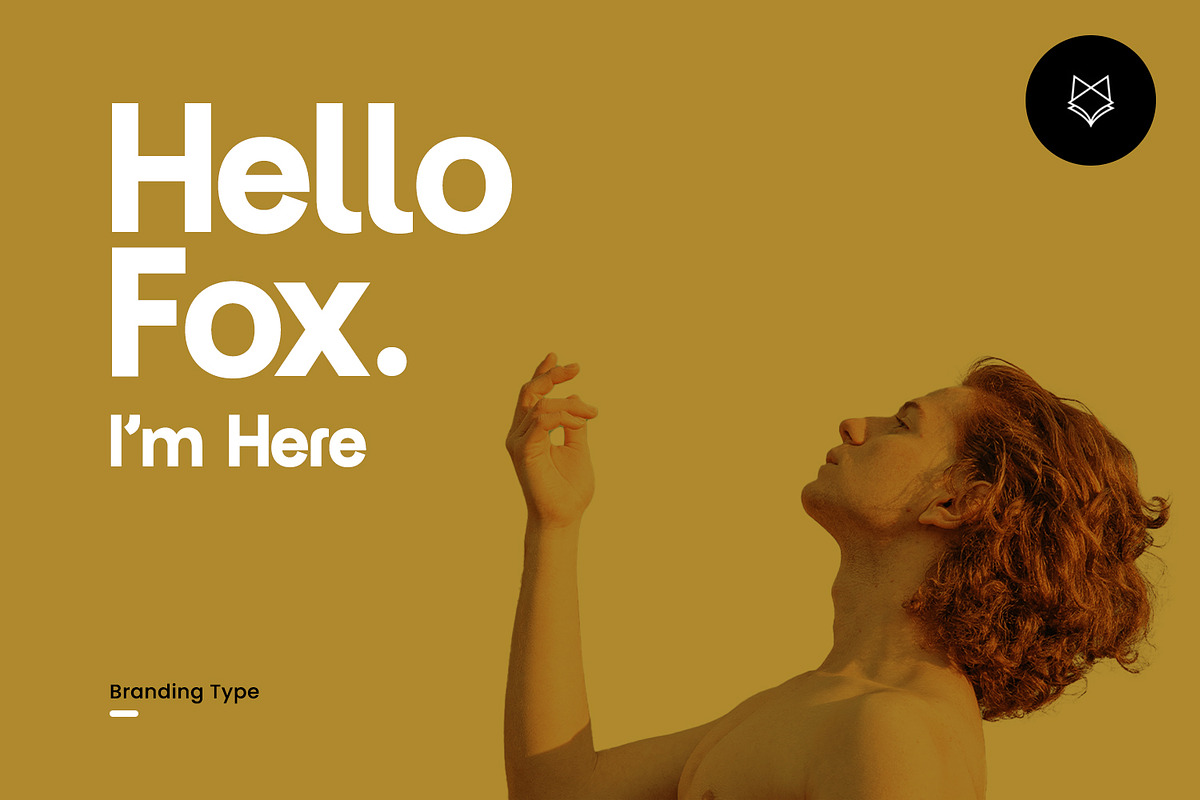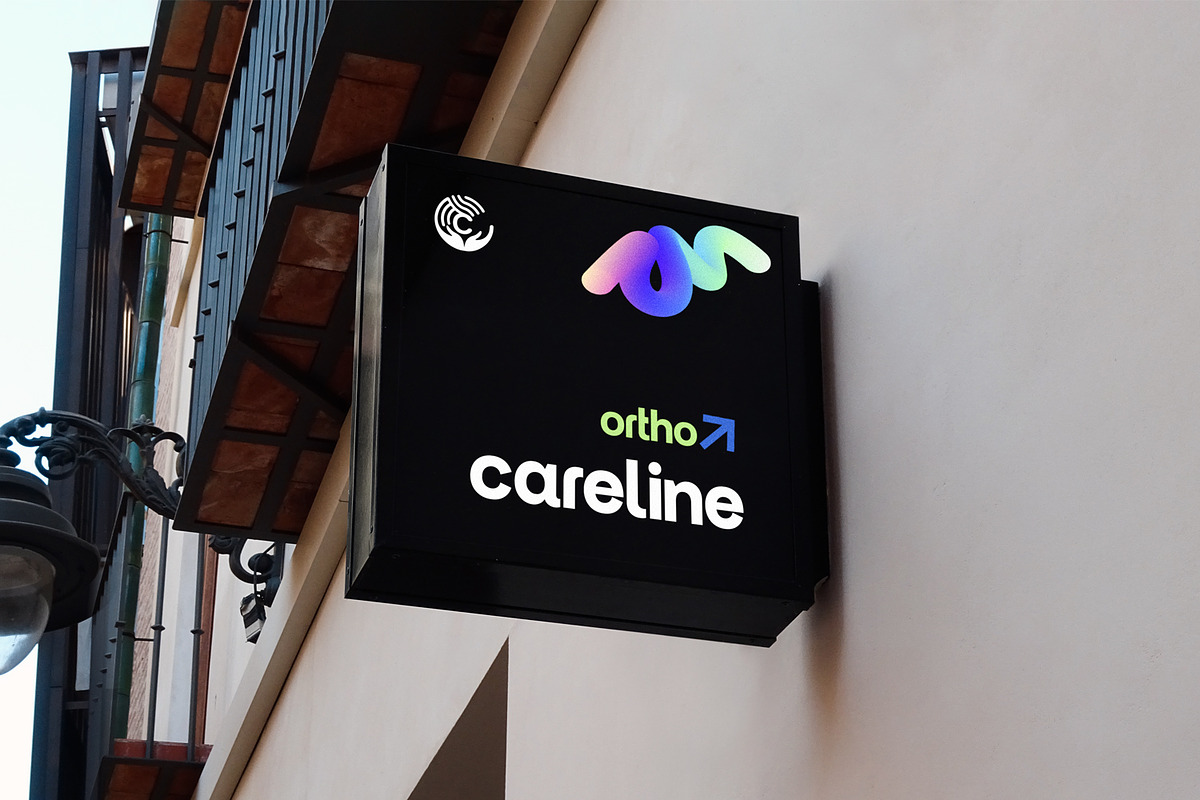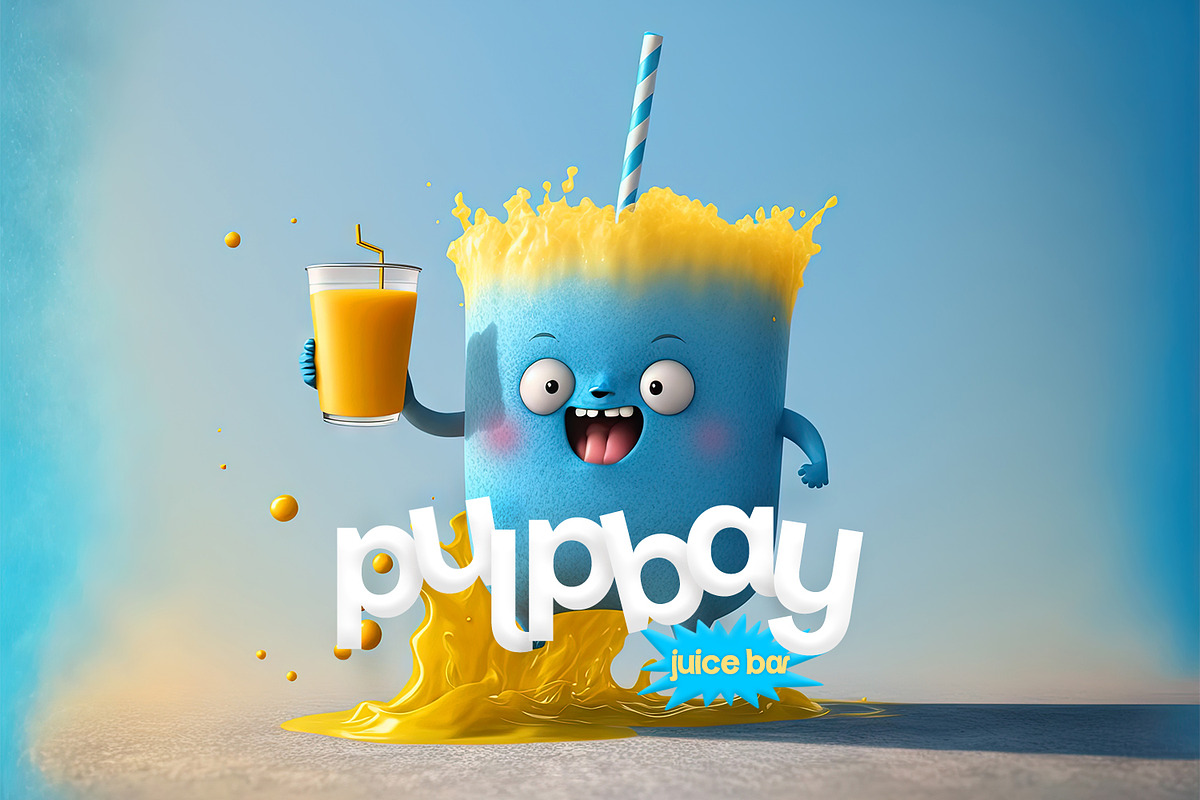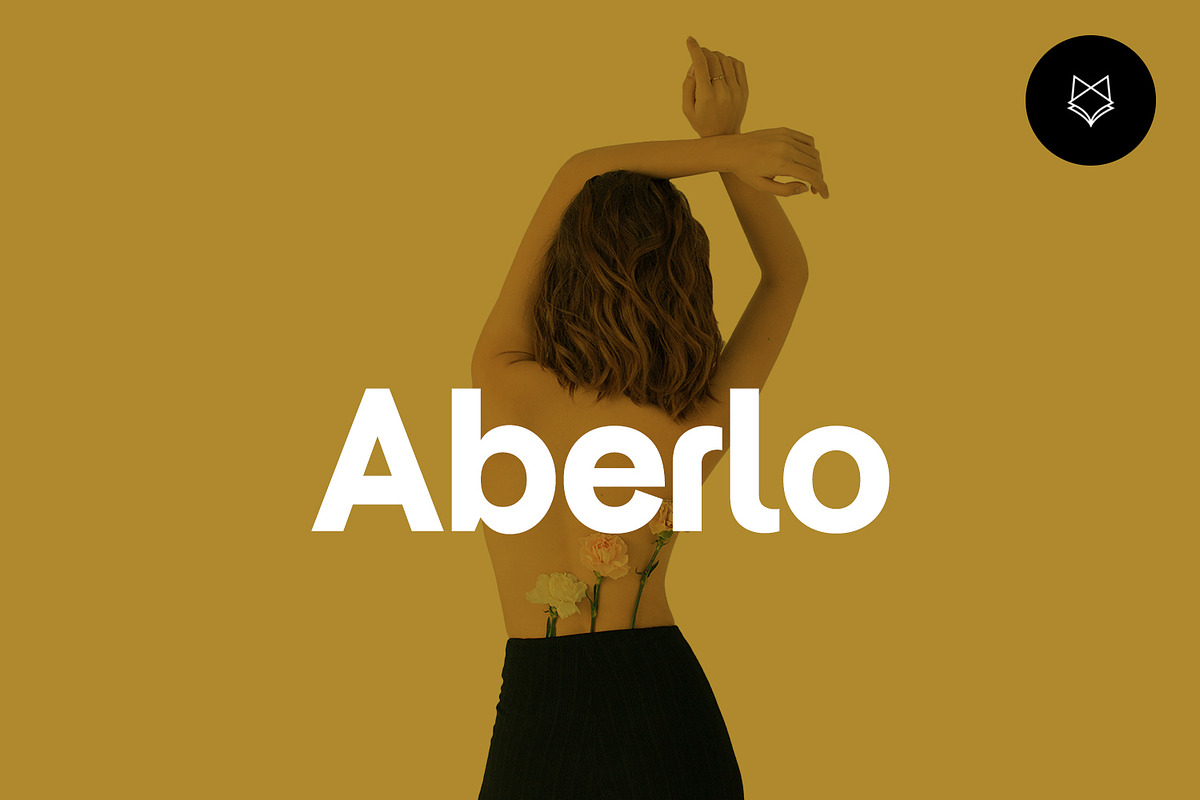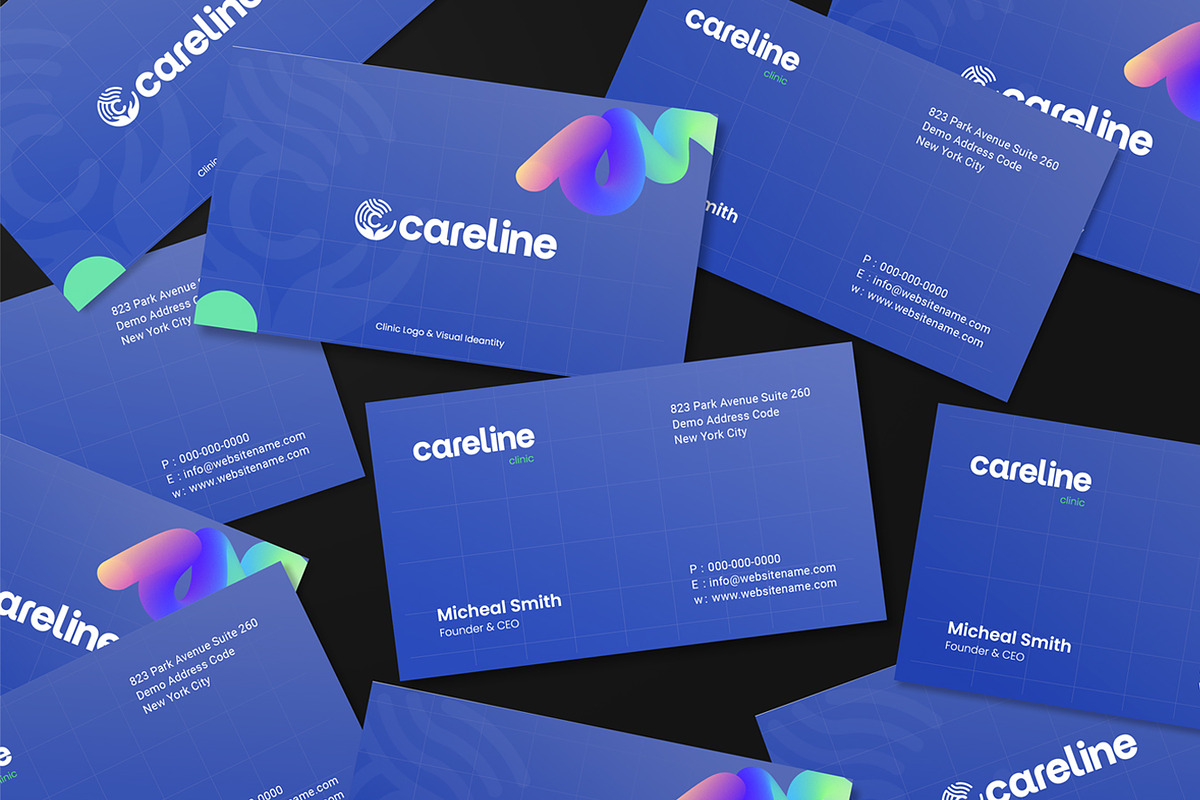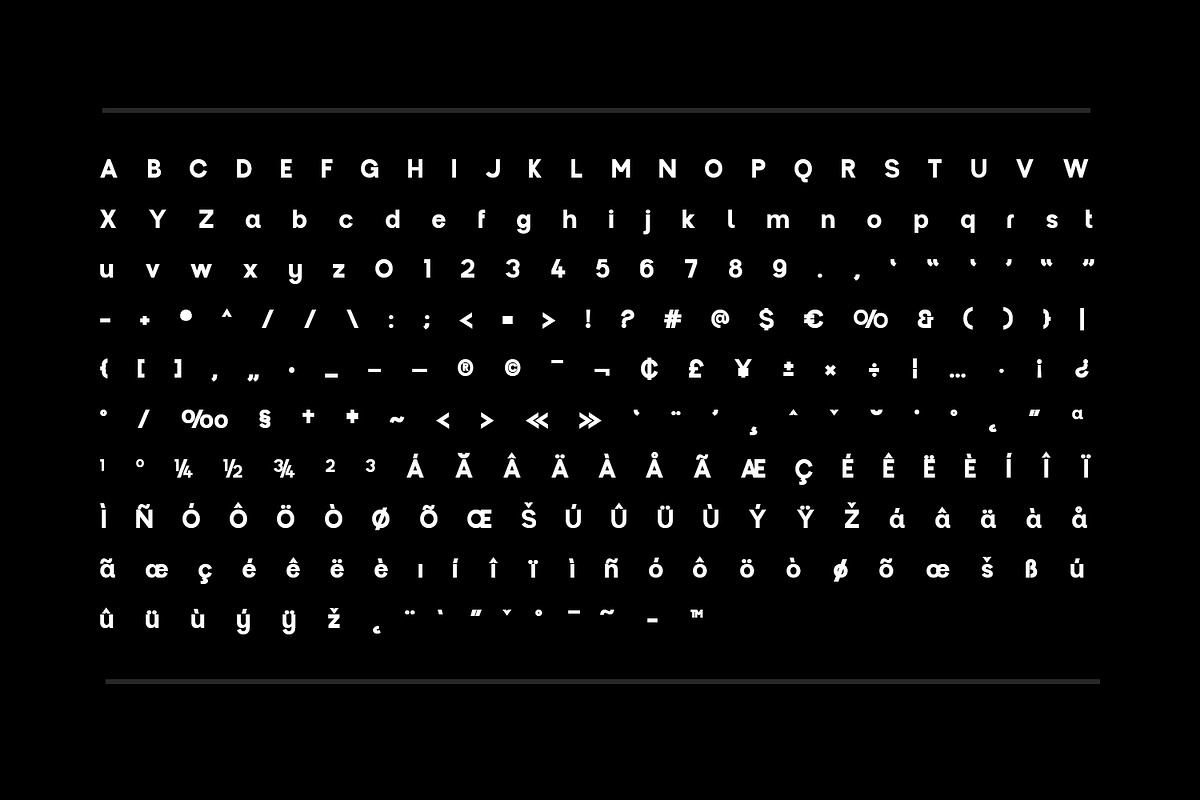
Aberlo Display Typeface
Aberlo Display new generation Typeface. Aberlo Dispaly Typeface created with the vision of attract the audience to your brand . The finest details of this typeface are methodically and mathematically created. Aberlo is created with all the tasks of a corporate font and also for the usage in a variety of projects, including branding product, logos, titles, headlines, servers, posters, screens, display, digital ads, and everything else.
We are putting a lot of effort on this font as a long-term project.